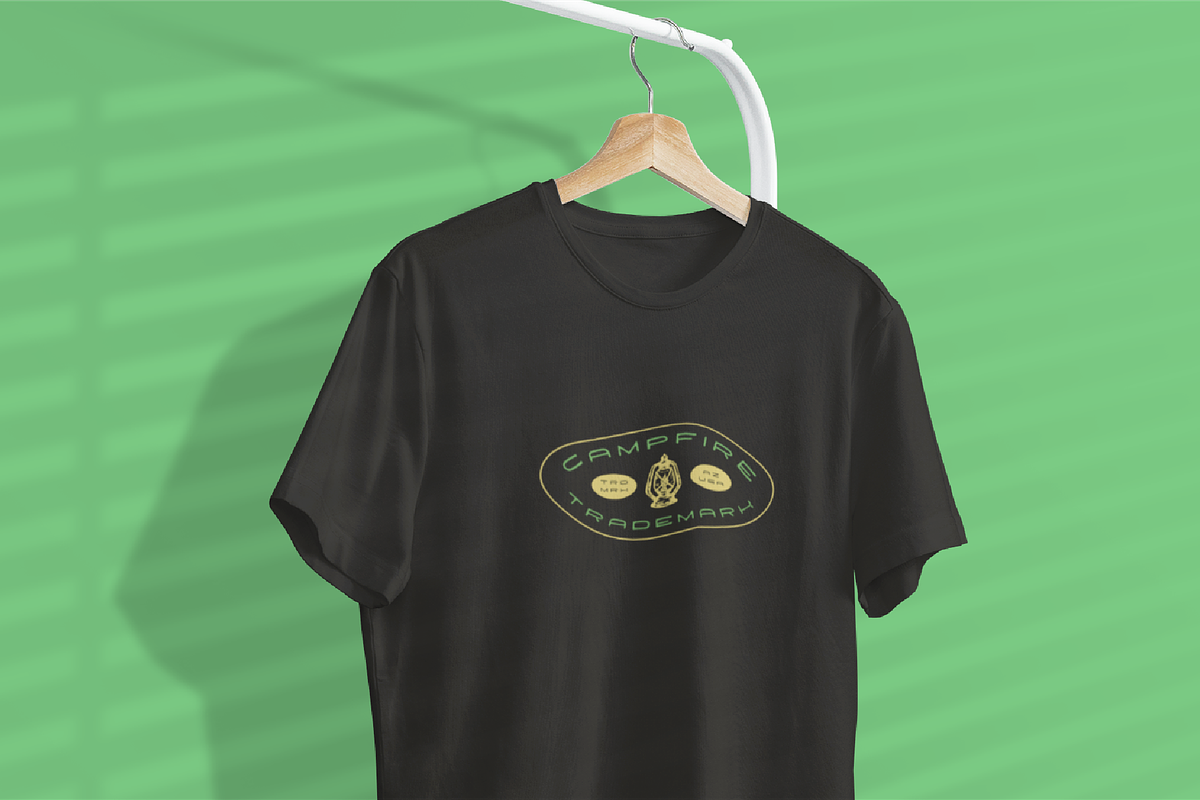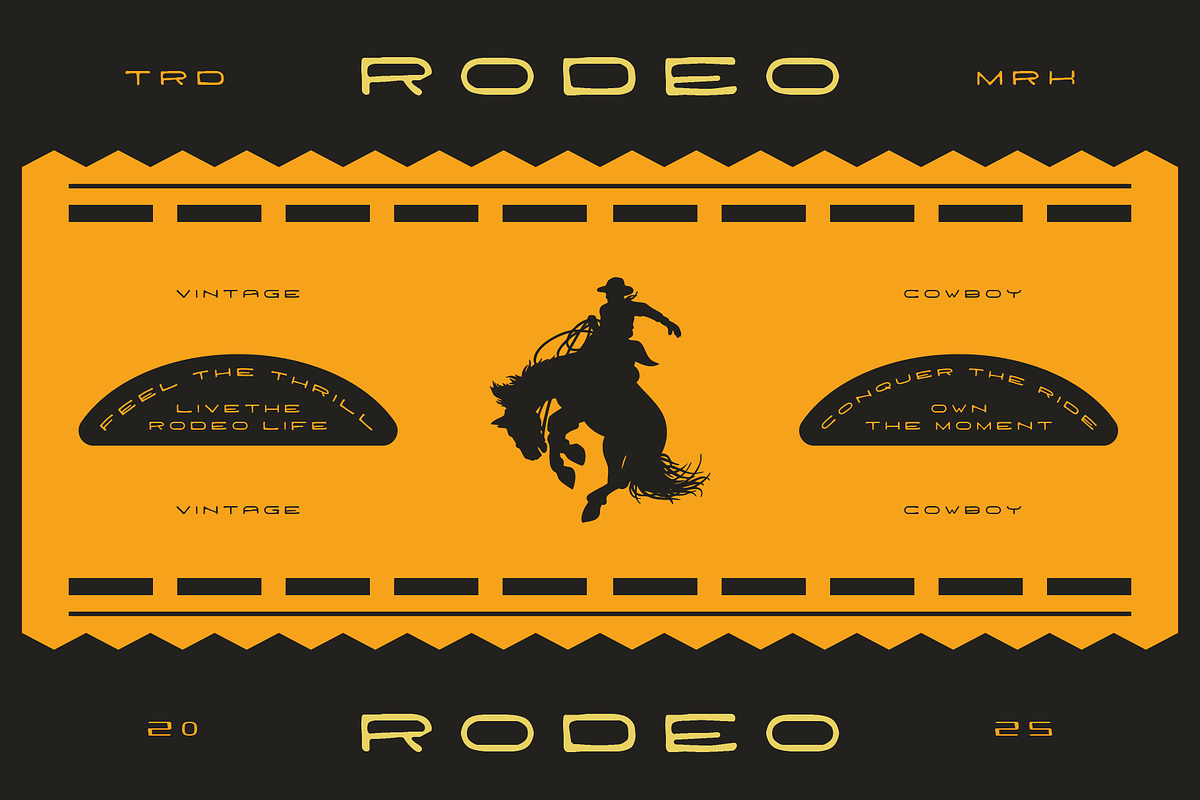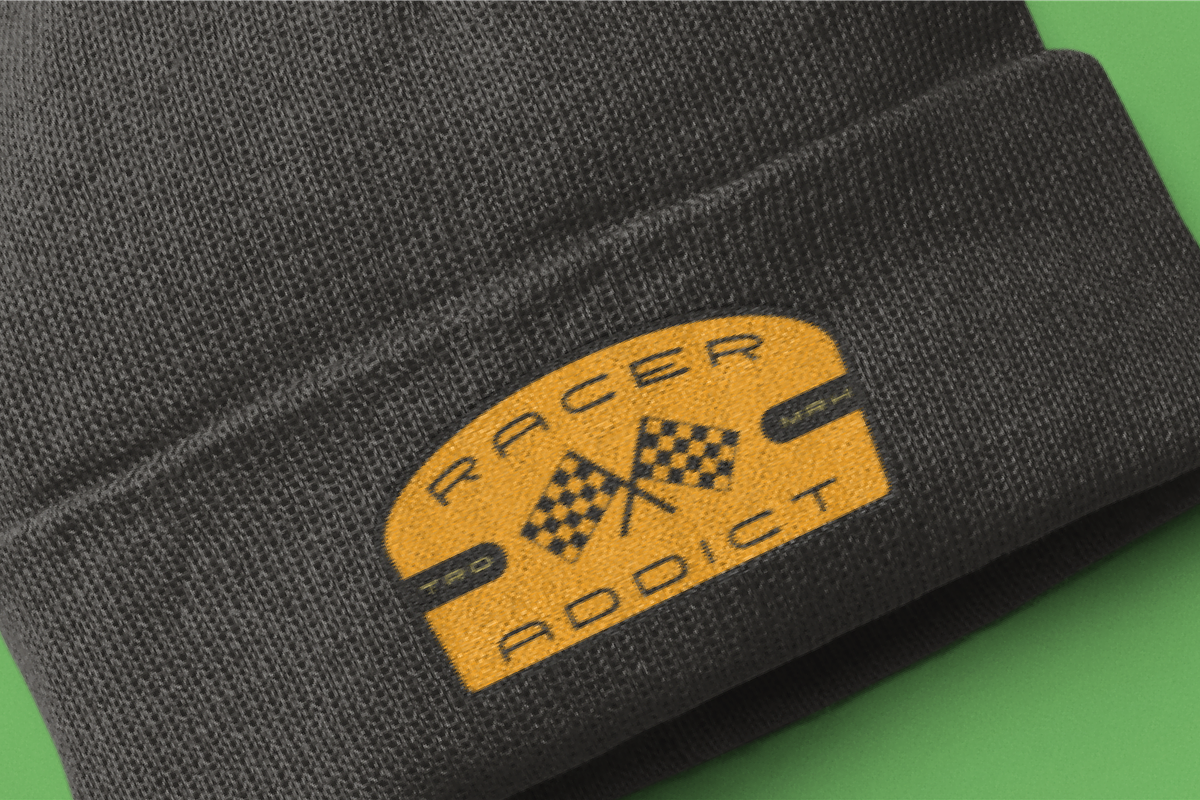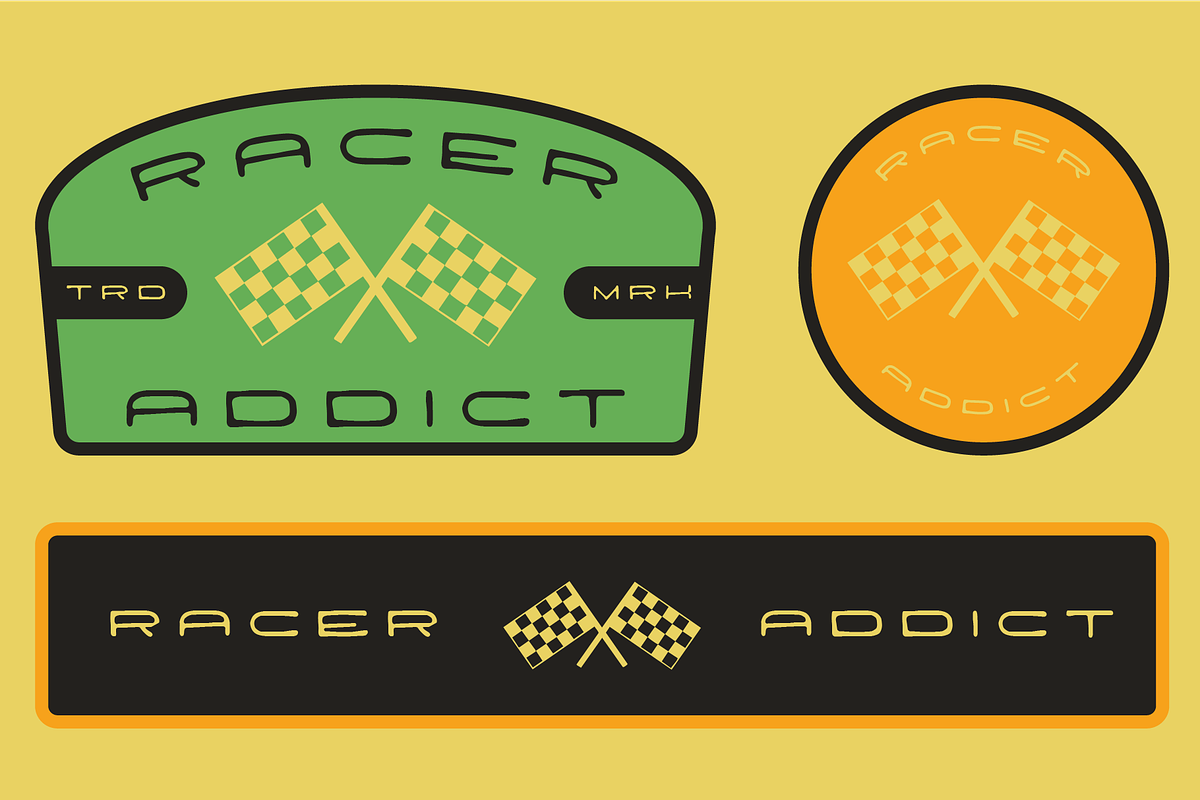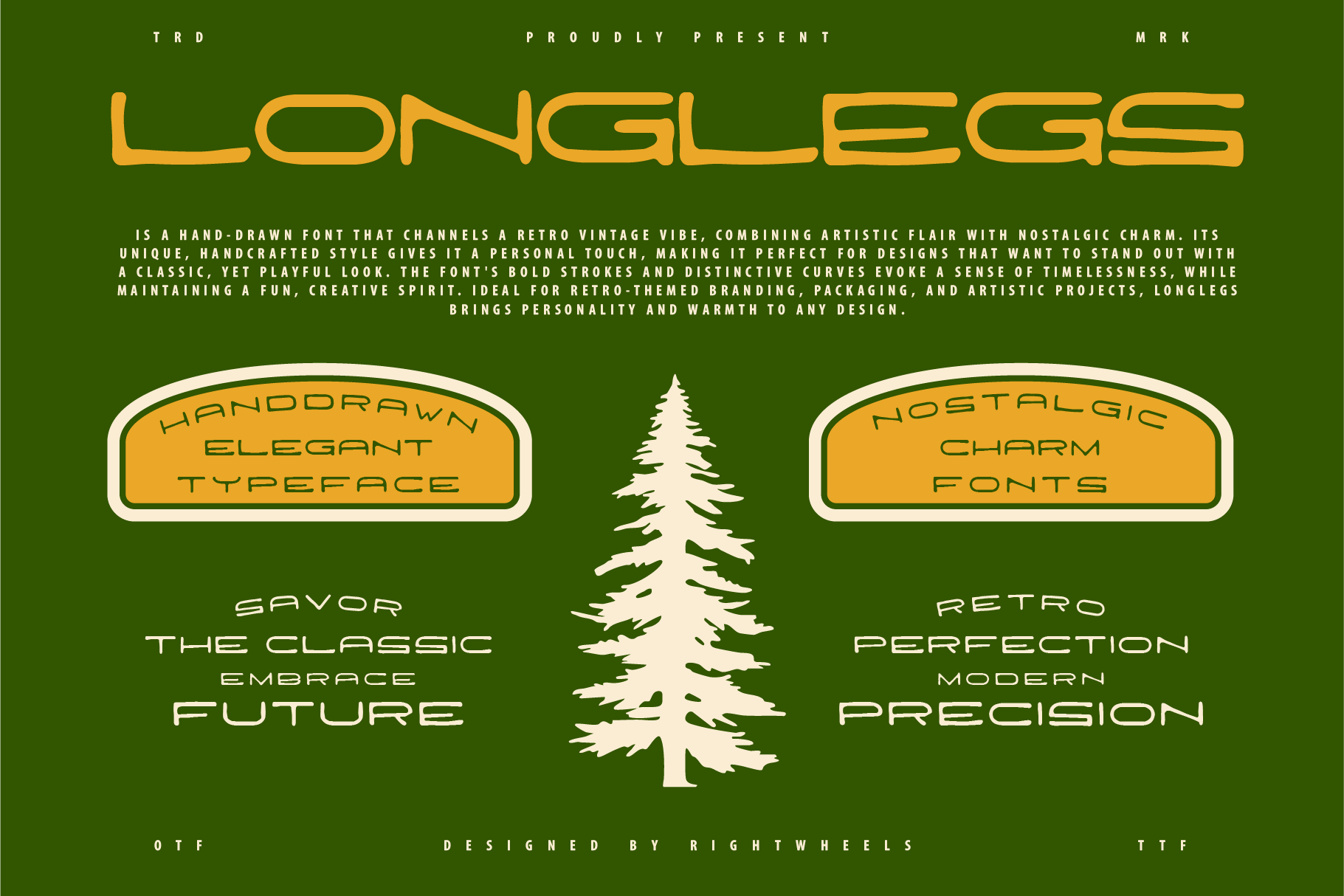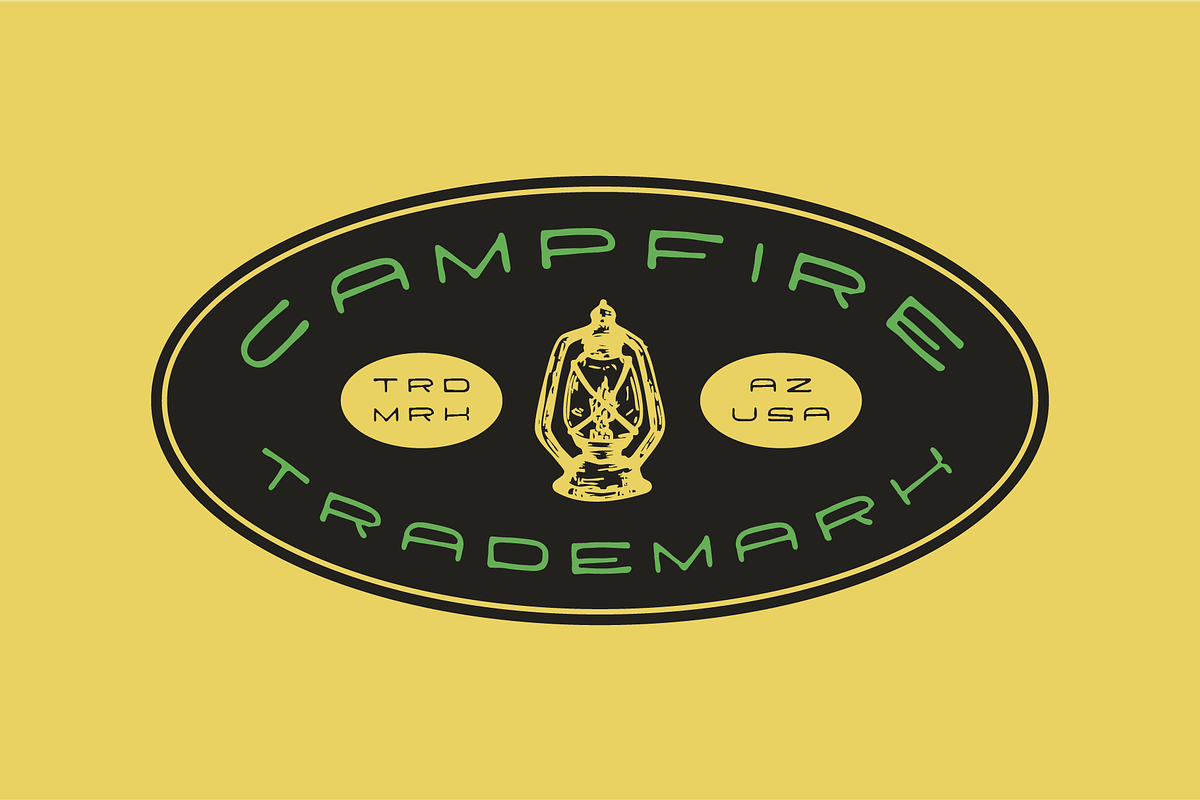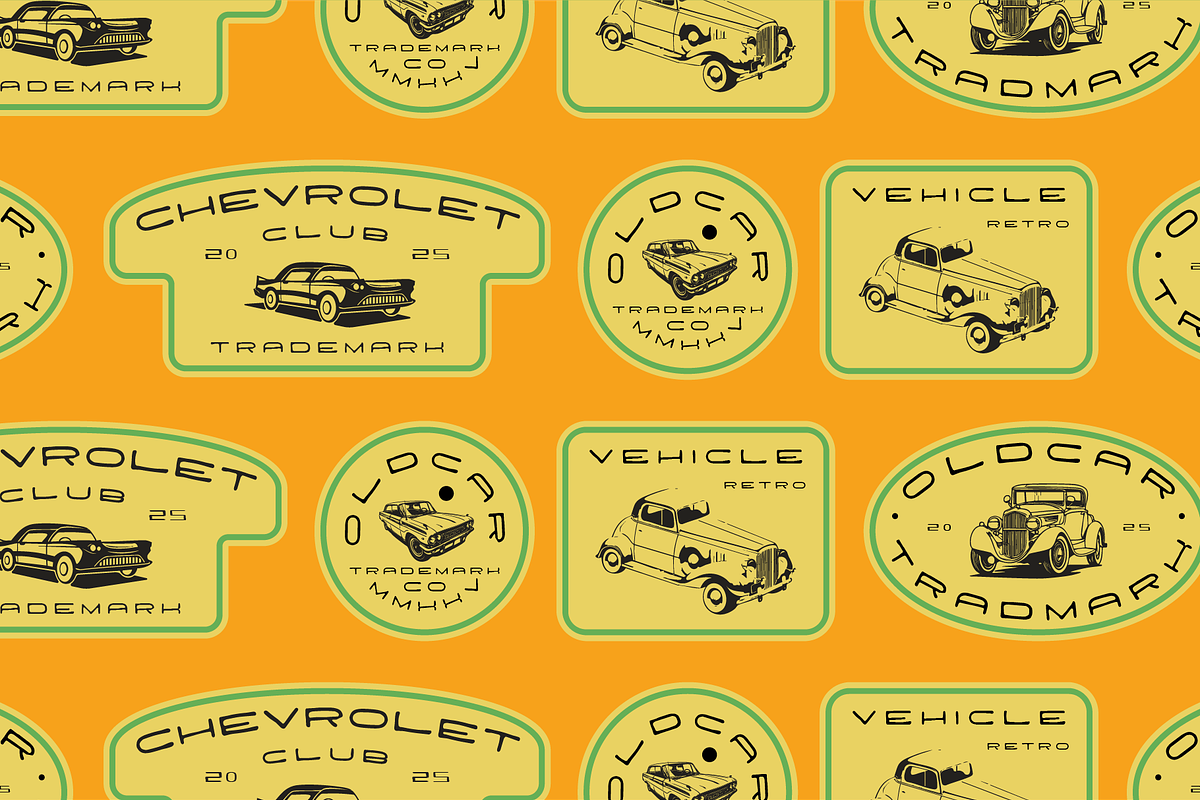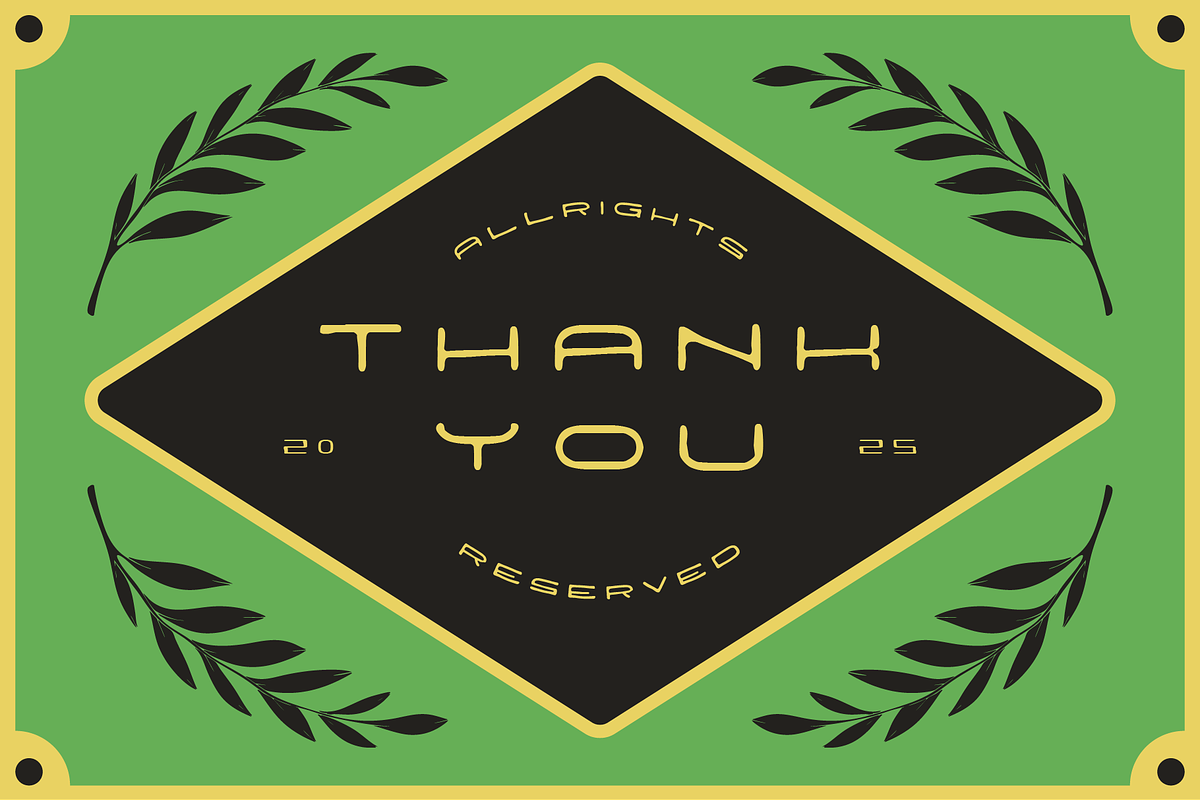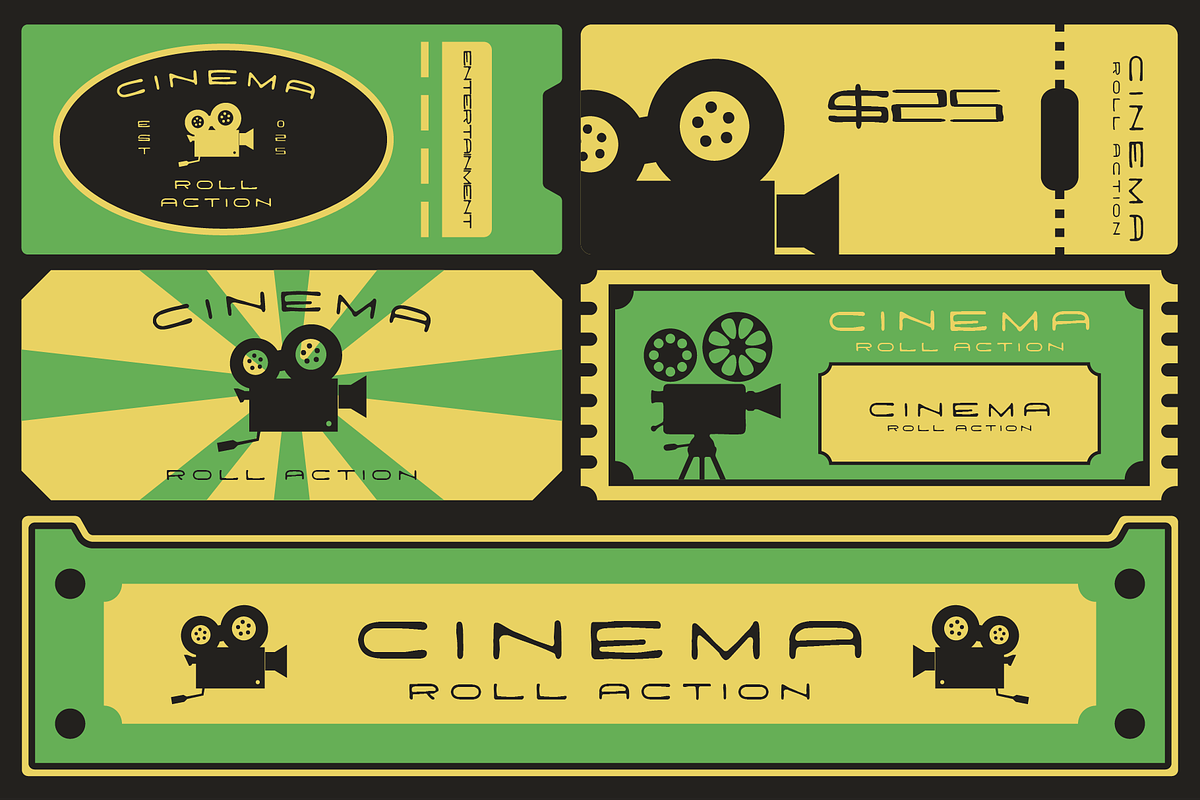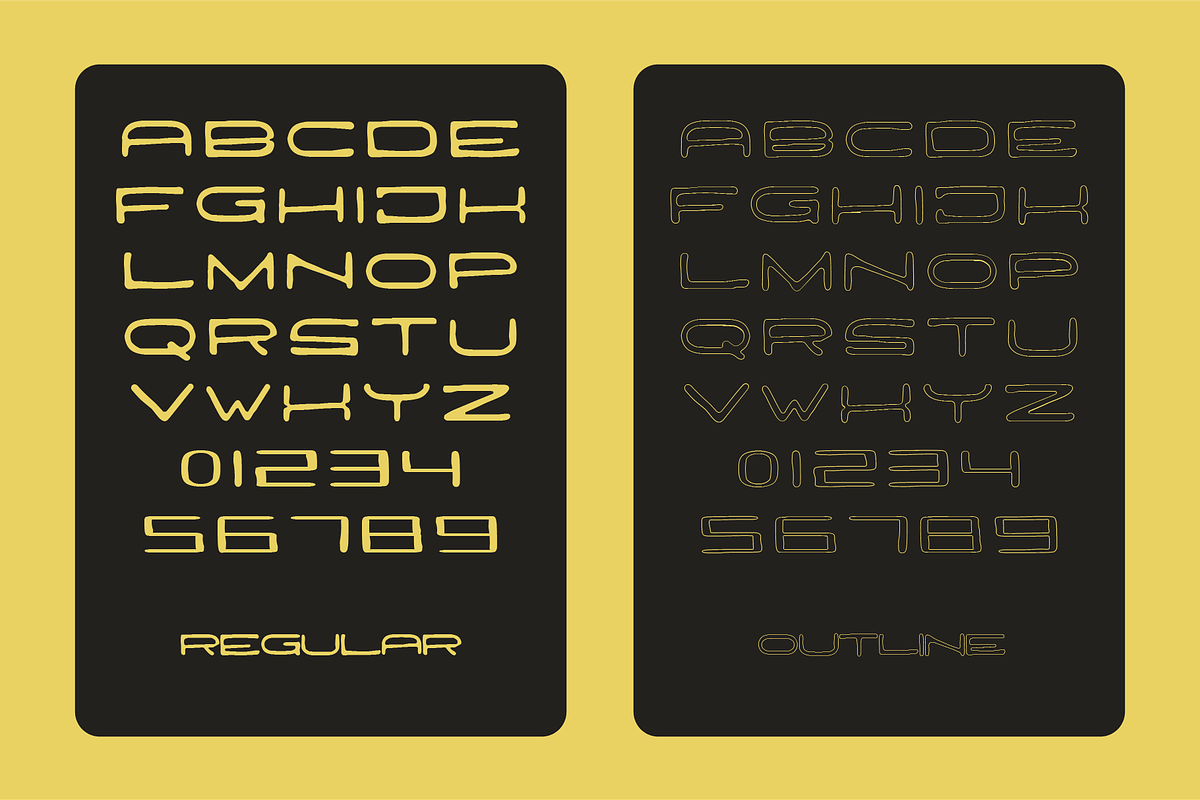
LONGLEGS - Retro Handdrawn Typeface
Longlegs is a hand-drawn font that channels a retro vintage vibe, combining artistic flair with nostalgic charm. its unique, handcrafted style gives it a personal touch, making it perfect for designs that want to stand out with a classic, yet playful look. the font's bold strokes and distinctive curves evoke a sense of timelessness, while maintaining a fun, creative spirit. ideal for retro-themed branding, packaging, and artistic projects, longlegs brings personality and warmth to any design.